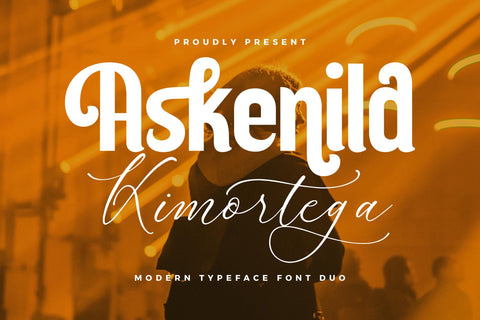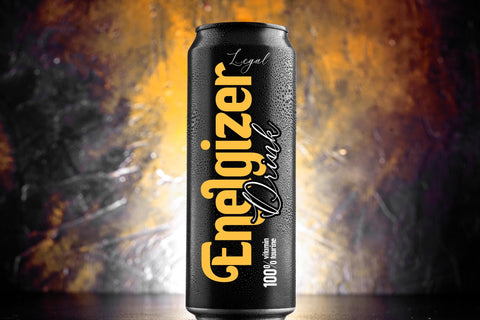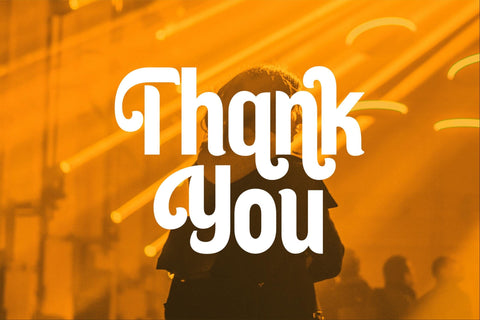
Askenild Kimortega Font Duo
Proudly present Askenild Kimortega Font Duo , created by Storytype,
A serif and script typeface that has own unique style & modern look.